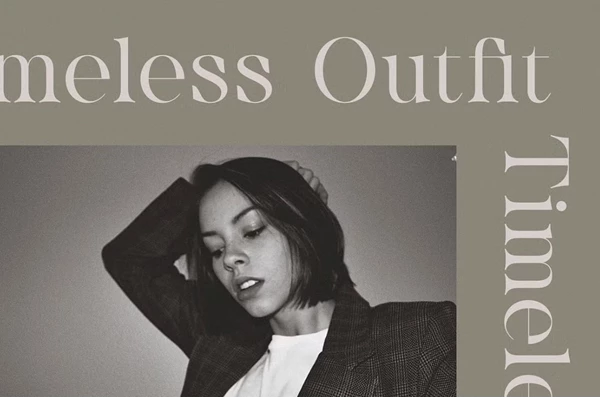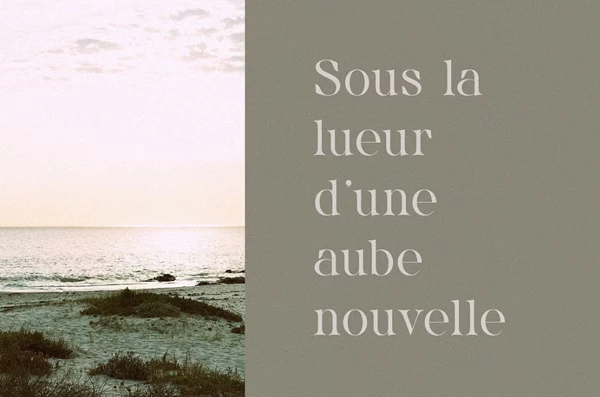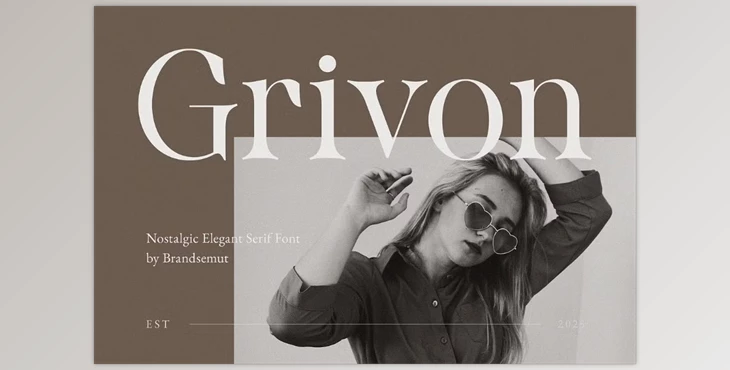
Grivon – Nostalgic Elegant Serif Font:
Gritoni is a very high contrast serif that boasts nostalgic vibes with a modern twist. It comes in both all caps and lowercase, which flows in the same soft rhythmic nature throughout. This font is ideal for branding, packaging, editorial headlines, fashion books and stories. It contains vintage yet highly legible elements, so it's great for any project requiring a high-quality look to evoke feelings of realism.
Some great features of Grivon – Nostalgic Elegant Serif Font:
- Caps/lowercase alphabet support
- High contrast serif
- Subtle vintage details
- Multi-language support
- Good for print and web